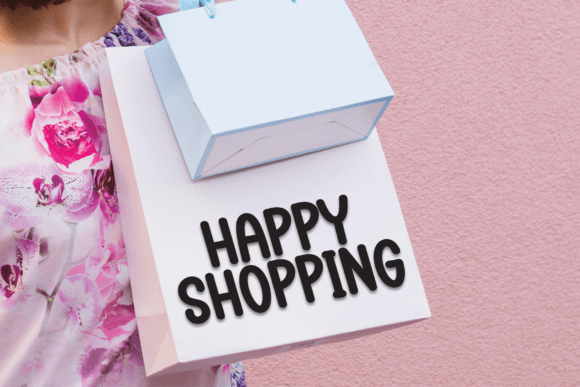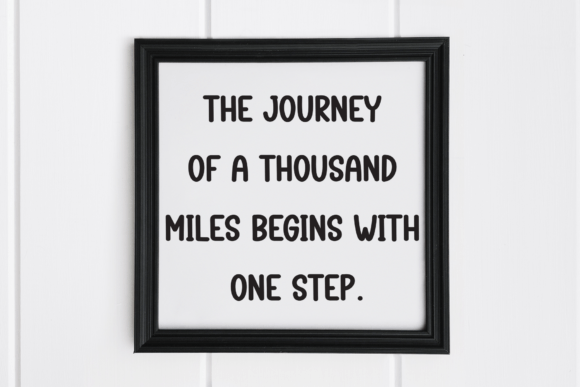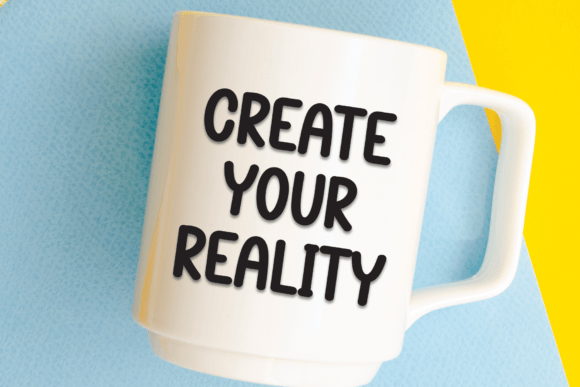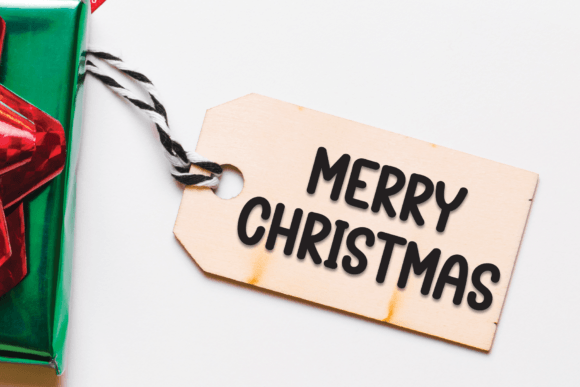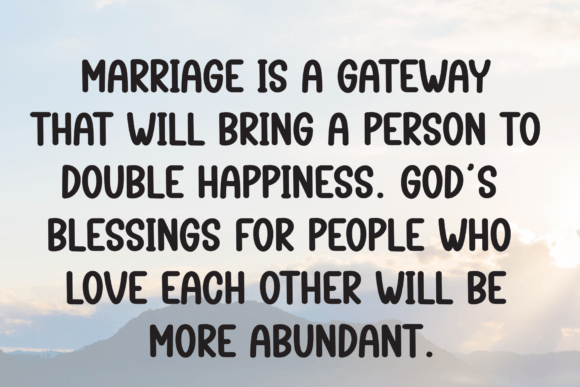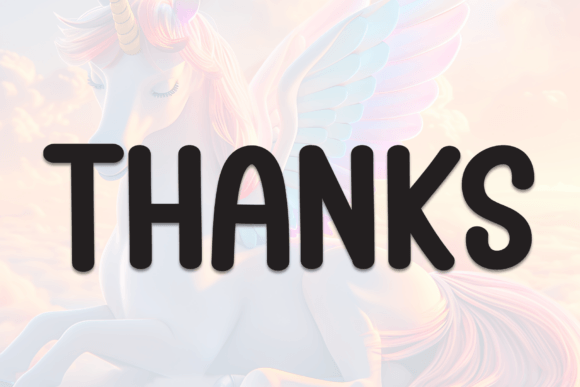
Introduction to Simple Unicorn Font
Do you remember the feeling of excitement when working on a creative project, and you can’t find the perfect font to bring your idea to life? That’s exactly what happened to me when I stumbled upon the Simple Unicorn Font. Its charming, handwritten style immediately caught my attention, and I knew I had to share it with fellow designers.
The Simple Unicorn Font is a treasure trove of design inspiration, offering a unique and natural style that can elevate any project. With its high-quality design, this font is perfect for those who want to add a personal touch to their work. Whether you’re working on a free download project or a commercial design, the Simple Unicorn Font is an excellent choice. Plus, its transparent background makes it easy to incorporate into any design.
As a valuable design resource, the Simple Unicorn Font is sure to become a favorite among designers. Its versatility and charm make it an ideal choice for a wide range of creative projects, from digital art to print materials. So, get ready to unleash your creativity with the Simple Unicorn Font!
Key Features of Simple Unicorn Font
• High quality design: The Simple Unicorn Font is designed with precision and care, ensuring a crisp and clear display.
• Unique charm: The Simple Unicorn Font has a whimsical and playful feel, adding a touch of magic to any creative project.
• Perfect for design resource: This font is a valuable addition to any designer’s collection, offering a versatile and stylish option for a wide range of design projects.
Honest Review: Simple Unicorn Font
I recently stumbled upon the Simple Unicorn Font while searching for a free download to use in a creative project. I was pleasantly surprised by its high quality and versatility. The font is perfect for adding a touch of magic to any design.
Limitations: ⚠️ The Simple Unicorn Font may not be the best choice for formal or professional designs. It’s more suited for whimsical or fantasy-themed projects. Additionally, some users may find the font’s simplicity to be a limitation in terms of customization options.
Overall, I’m impressed with the Simple Unicorn Font. It’s a valuable design resource that’s perfect for adding a touch of magic to creative projects. With its high quality and transparent background, it’s a great choice for designers who want to add some personality to their designs.
• Perfect for whimsical or fantasy-themed projects
• High quality and versatile
• Transparent background makes it easy to layer over other design elements
To get the most out of the Simple Unicorn Font, use it in conjunction with other design elements, such as graphics and images, to create a cohesive and visually appealing design.
The Simple Unicorn Font is perfect for a variety of creative projects, including social media graphics, blog posts, and marketing materials. Its high-quality design and transparent background make it a versatile and useful design resource.